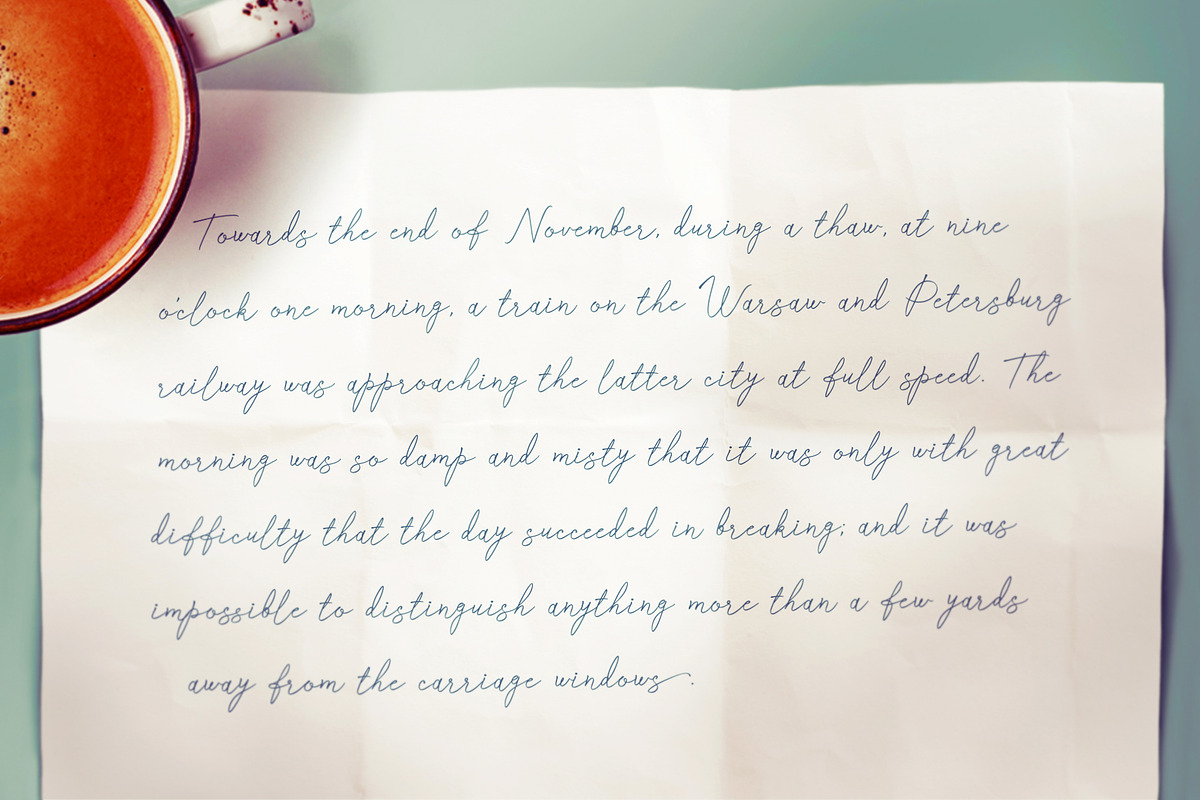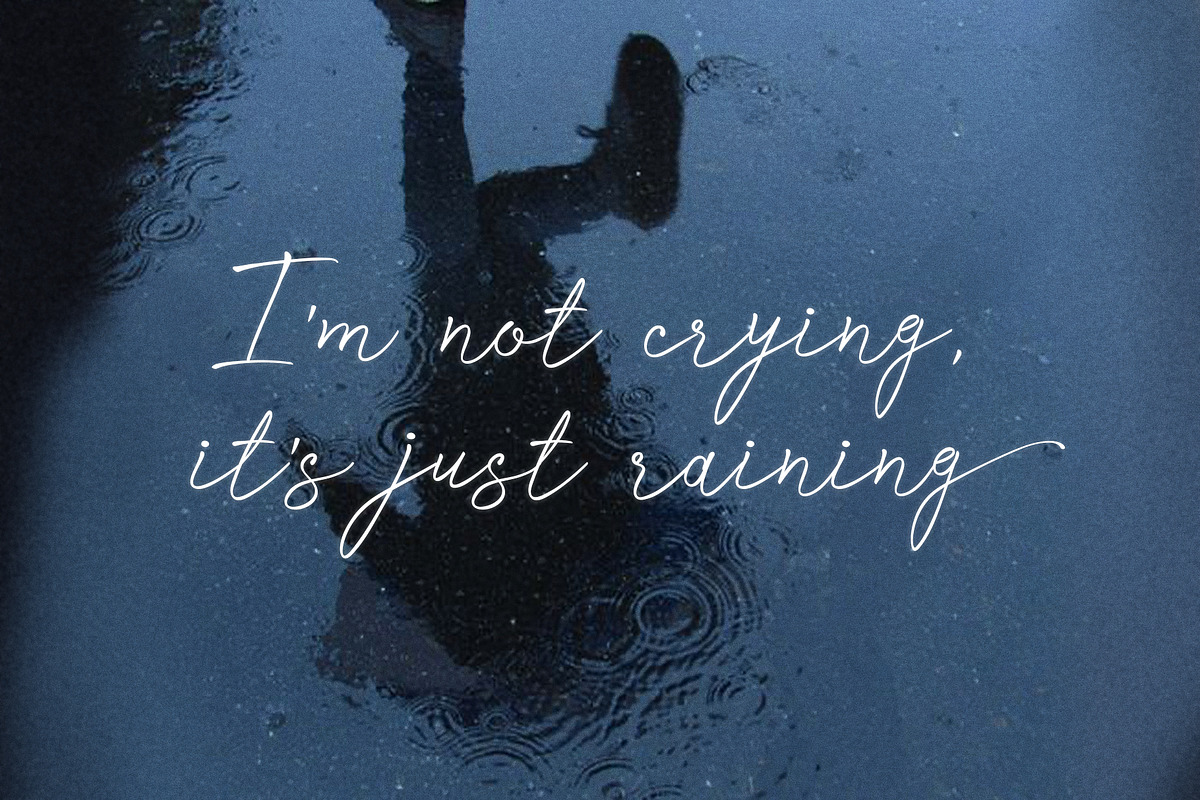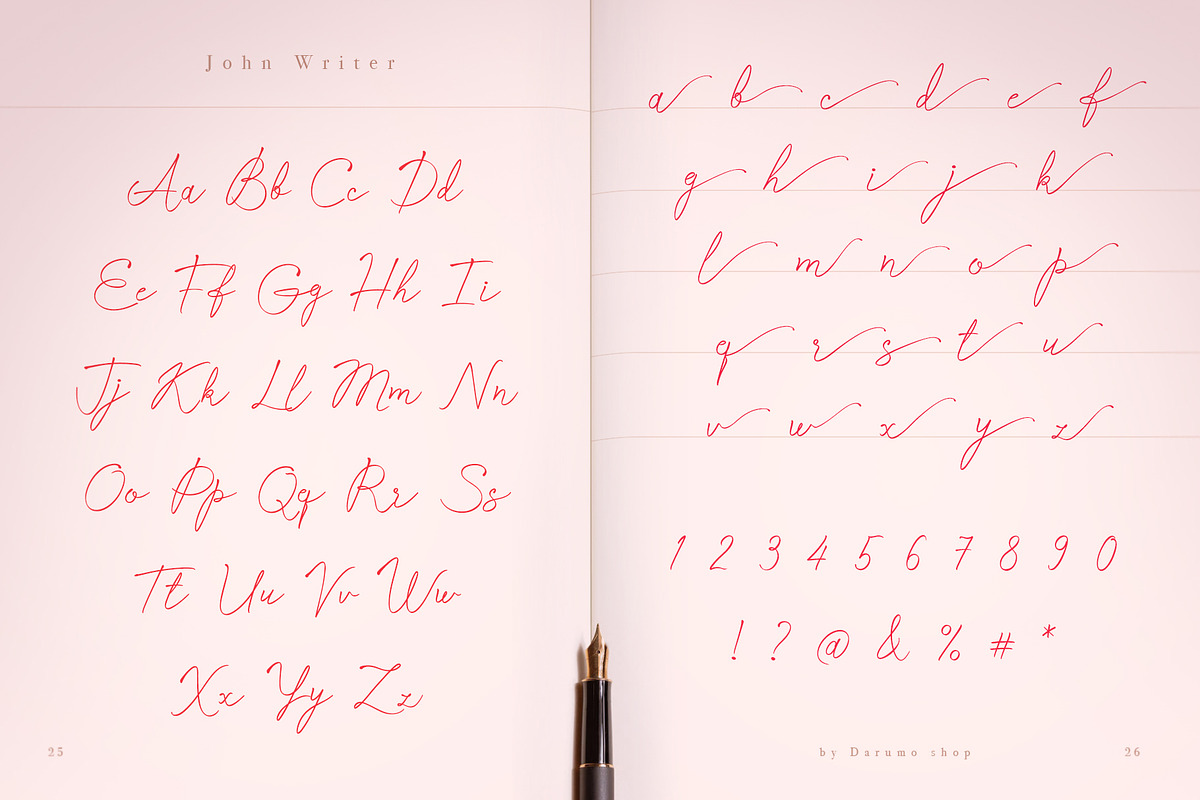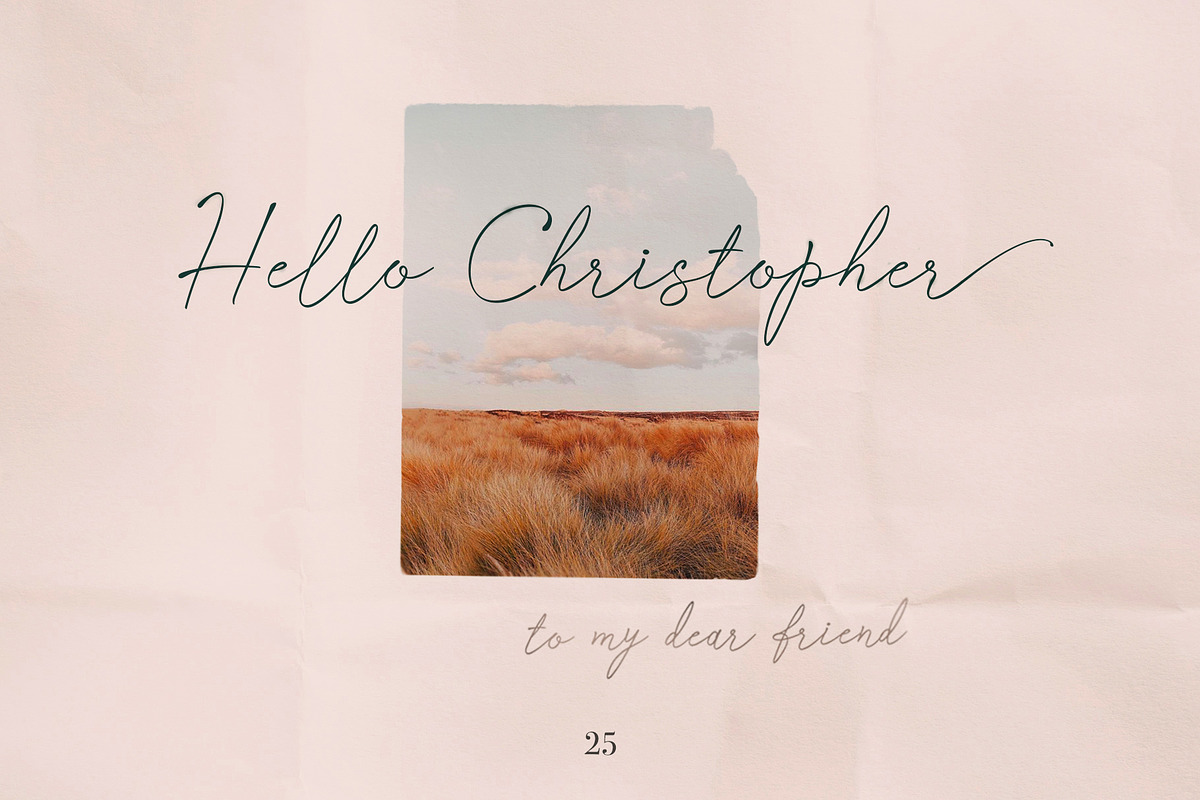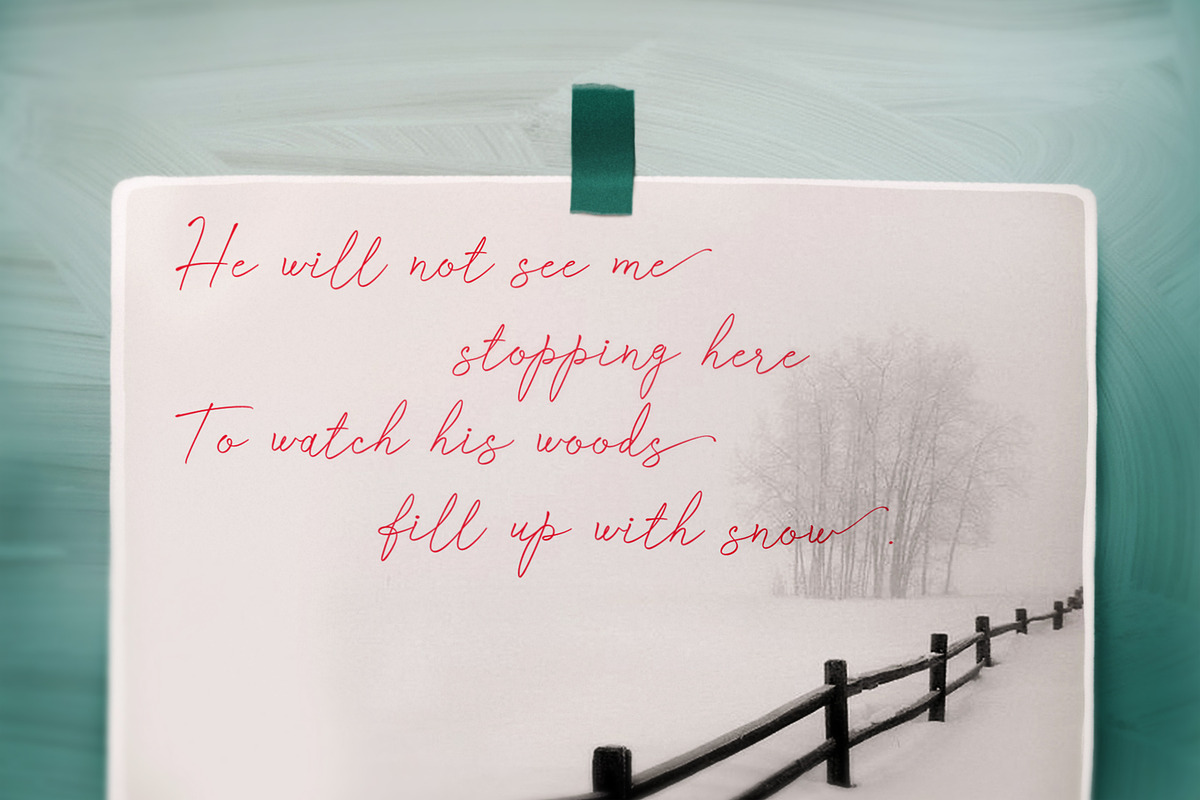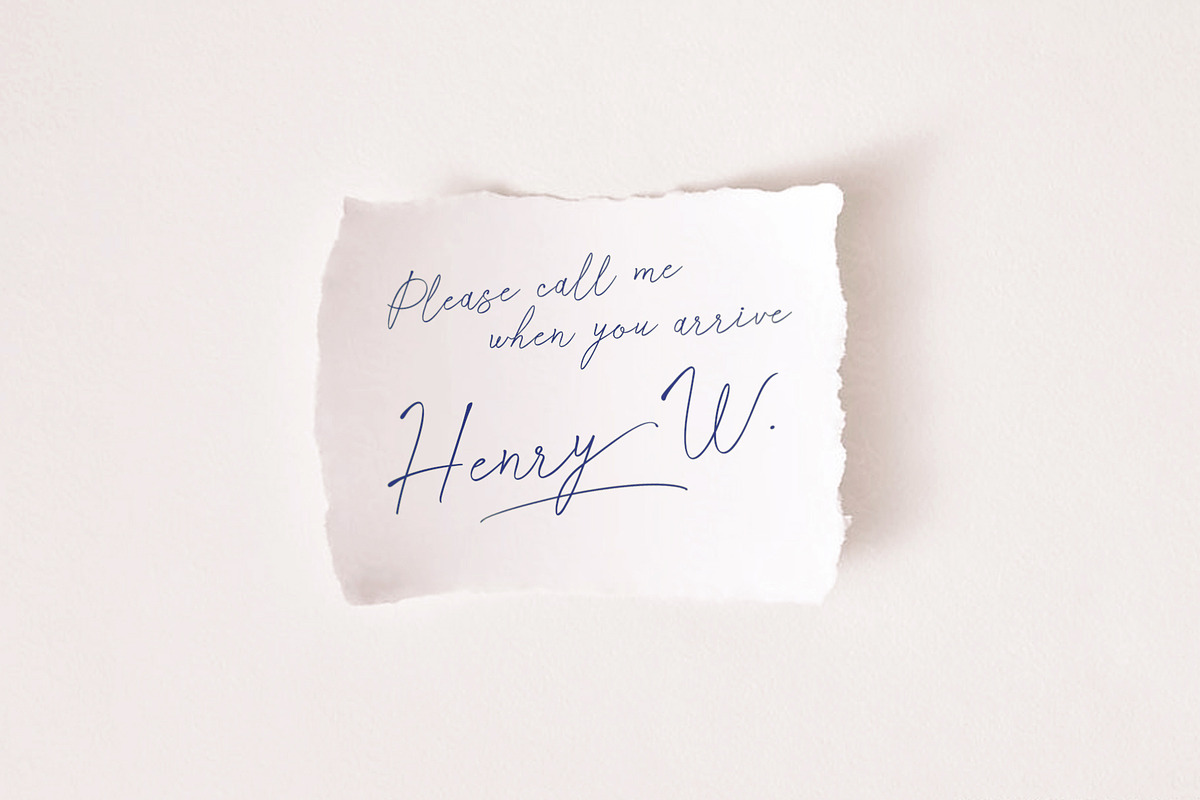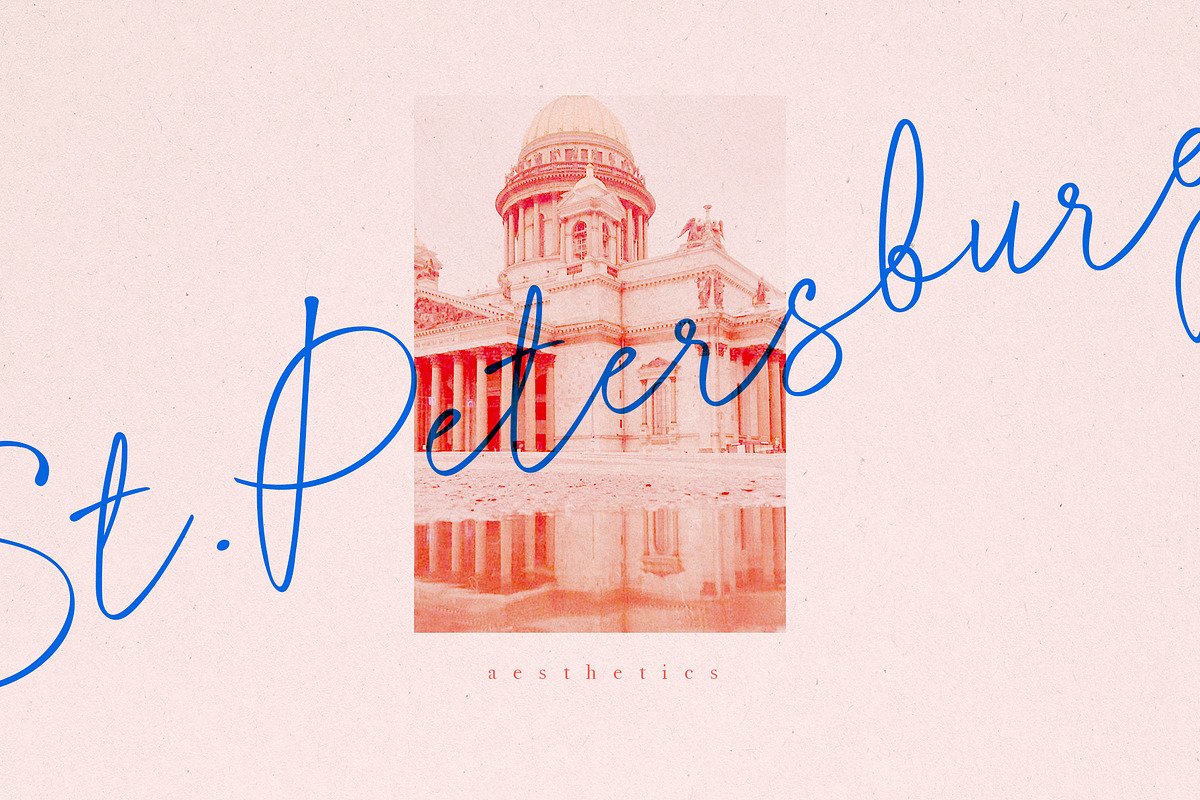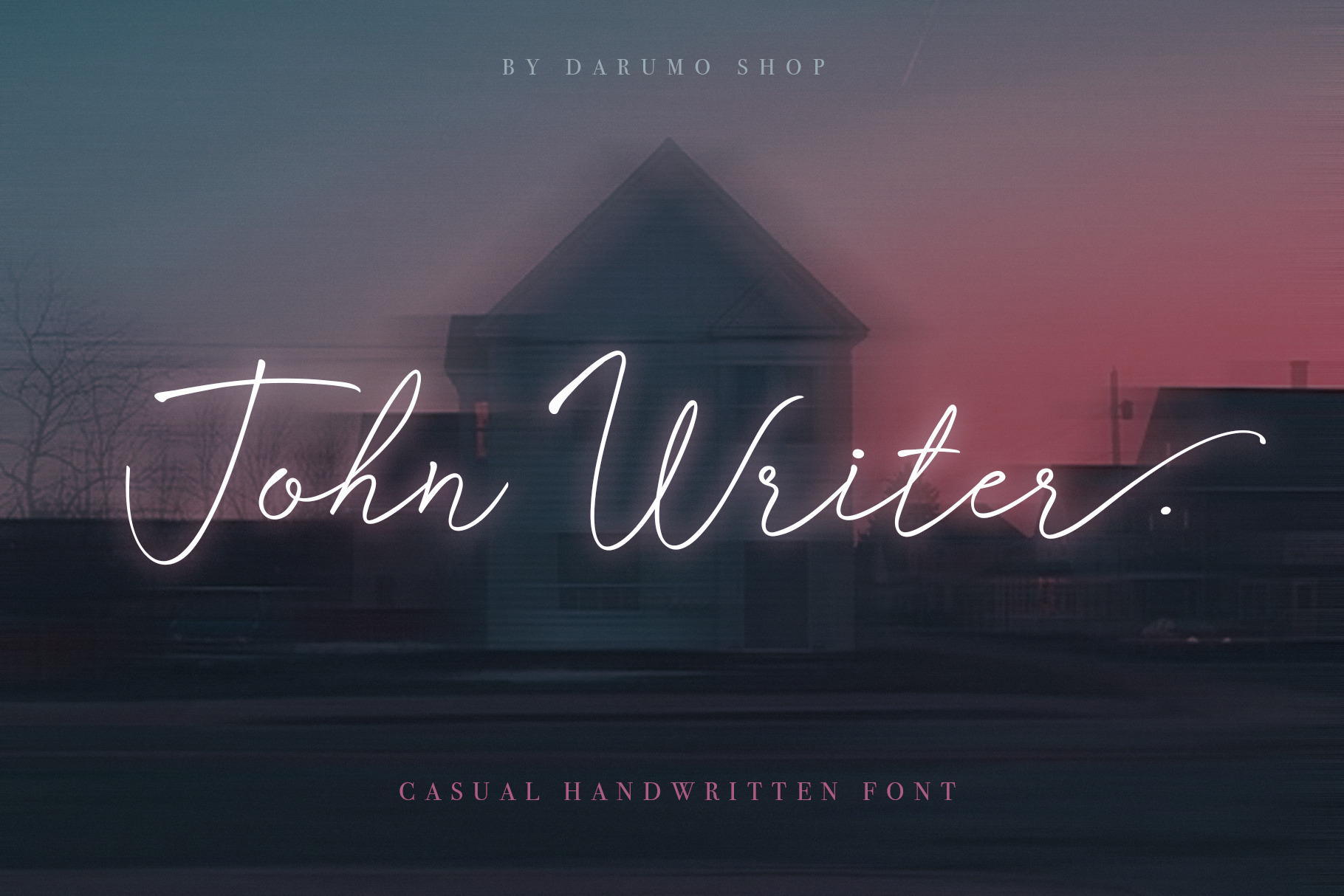
John Writer font
Introducing John Writer, casual handwritten font. This font imitates lively slightly sloppy writing. It could help to create easy natural letterings in your designs. Ending alternates will make words look consummate and refined. Hope you'll enjoy using it!